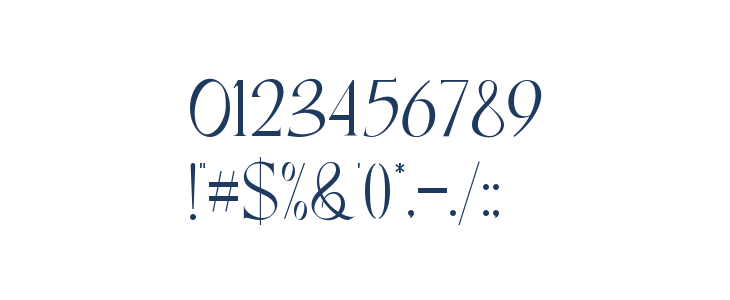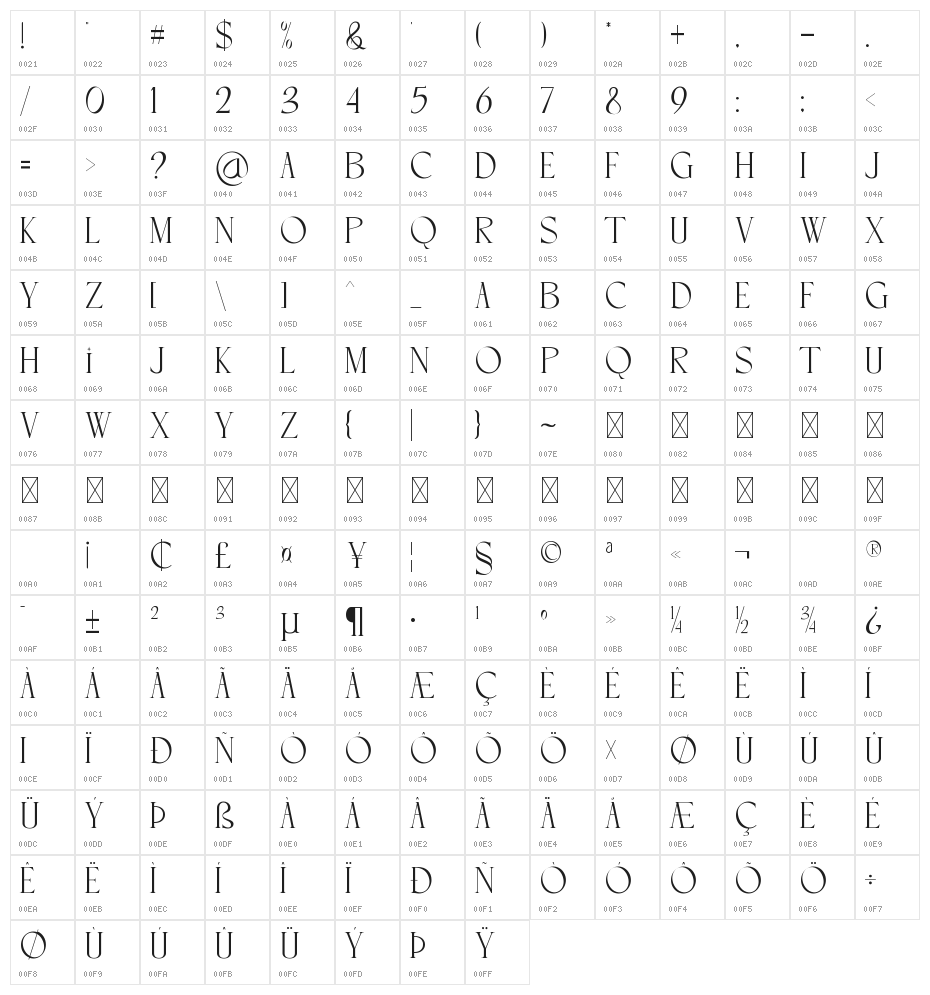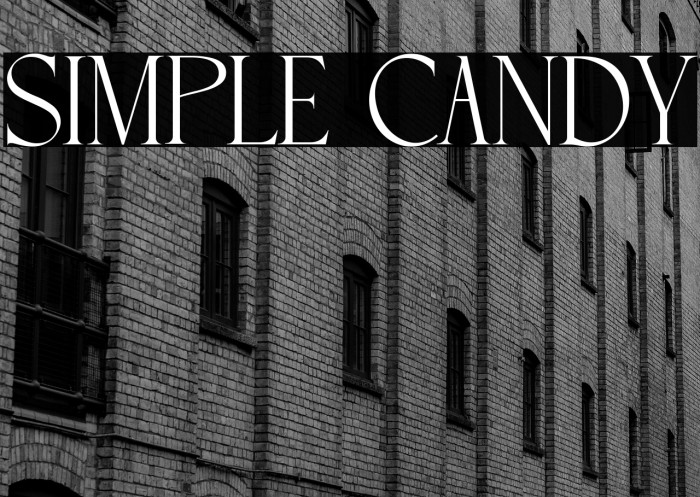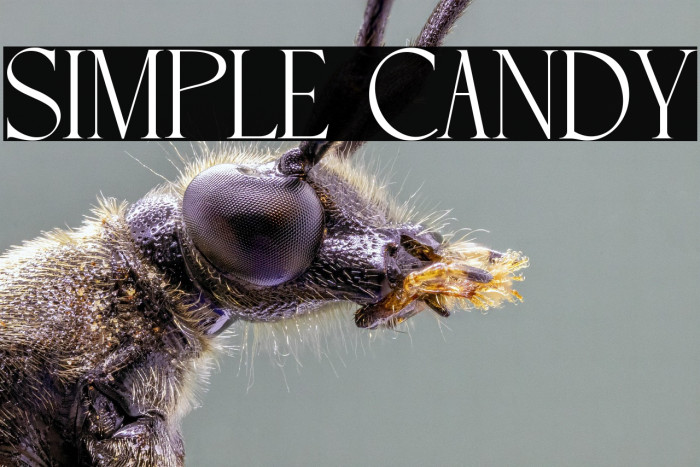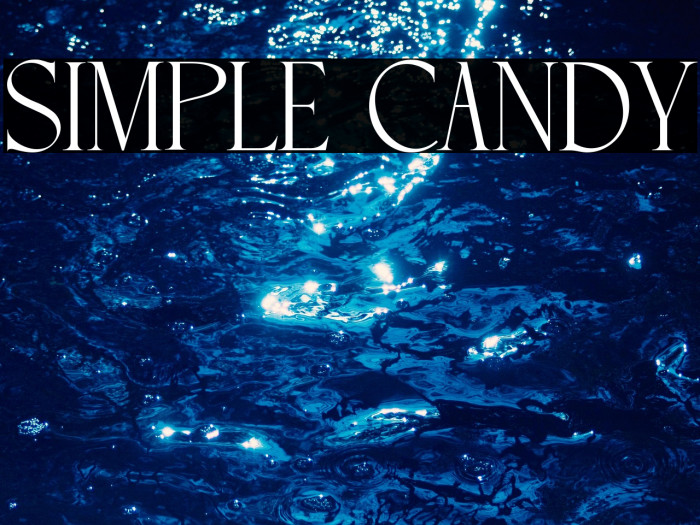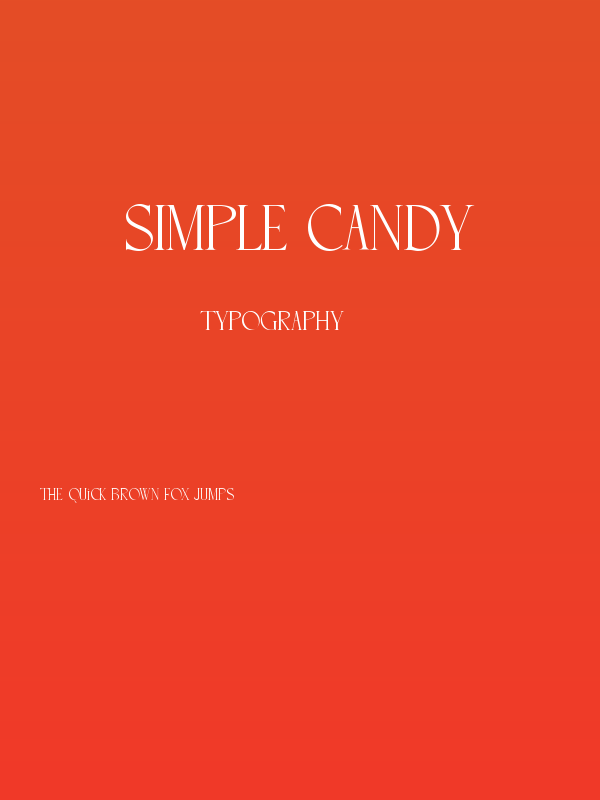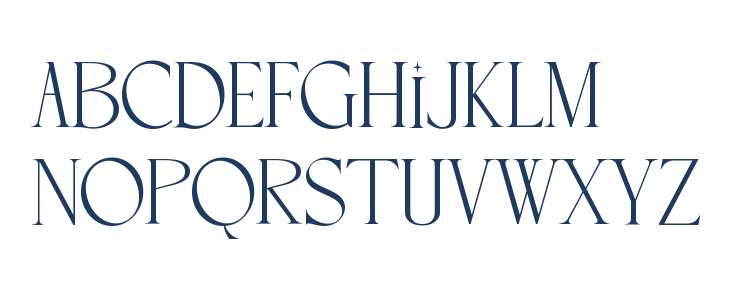
SIMPLE CANDY Font
SIMPLE CANDY Description
This font features a classic and elegant serif style with high contrast between thick and thin strokes, giving it a sophisticated and refined appearance. The uppercase letters are tall and slender, with sharp serifs that add a touch of formality. The lowercase letters maintain a similar style, with a graceful flow and slightly rounded edges. The numerals are proportional and align well with the overall aesthetic, while the special characters are designed to complement the letterforms seamlessly. This font exudes a timeless quality, making it suitable for a variety of formal and decorative applications.
| Overall Style | Classic |
| Use Case | Logos, Headlines, Editorial design |
| Proposed Projects | Ideal for wedding invitations, luxury branding, editorial design, and high-end product packaging. |